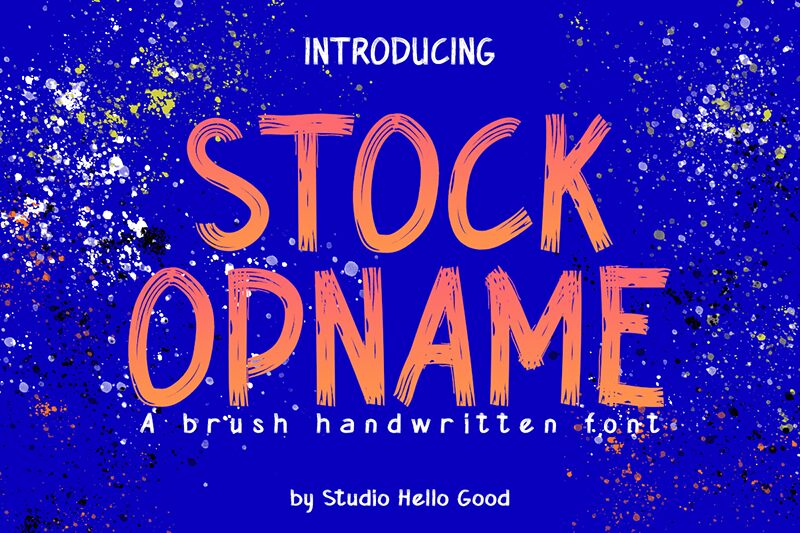
Stock Opname
Stock Opname font is a free brush font designed by Studio Hello Good. Its sketch-like appearance carries a grunge texture with the combination delivering a casual and relaxed aesthetic. Within its hand-crafted feel lies an energetic busy style, one that maintains clarity despite visual overload.
Use Stocks Opname font in quotes, titles, posters, social media graphics, branding ideas, logos, labels, packaging designs as well as invitations. The uses can also cover TV content projects (video activities explained on TV), drawing book covers or pages for kids and adults- even cards!